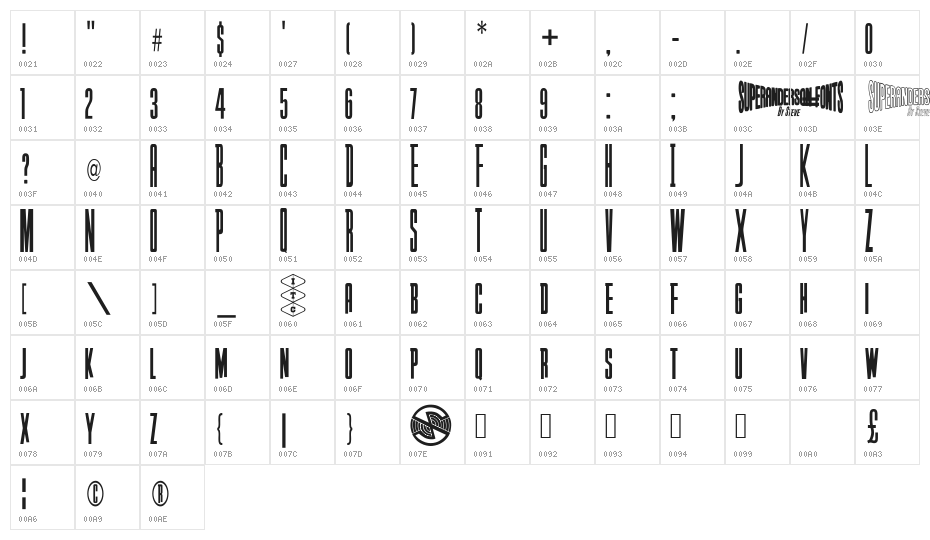
Anderson Captain Scarlet Font
Anderson Captain Scarlet Description
This font features a bold and striking design with tall, narrow characters that create a dramatic and impactful appearance. The uppercase letters dominate with their elongated forms, while the lowercase letters maintain a consistent height, adding to the uniformity of the typeface. The numbers are equally bold, ensuring they stand out in any composition. Special characters are included, maintaining the same boldness and style. The overall aesthetic is modern and assertive, making it ideal for attention-grabbing headlines or titles.